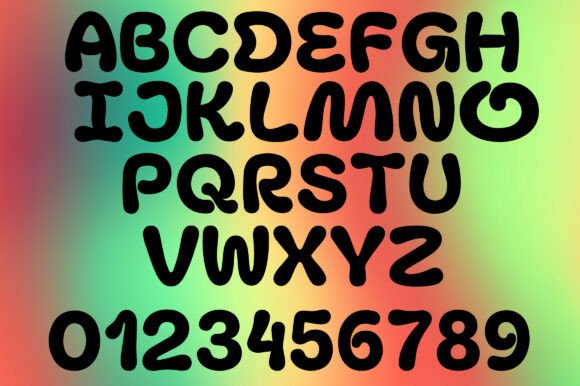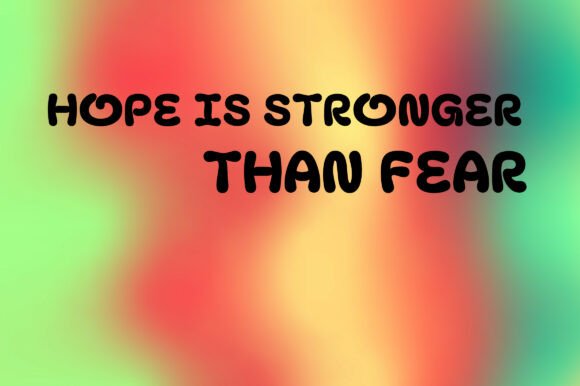
Introduction to Hope Shines Font
As I sat at my desk, surrounded by scraps of paper, paint swatches, and half-finished projects, I stumbled upon the perfect font to bring my creative vision to life – Hope Shines Font. This enchanting display font has an undeniable charm, transporting me to a bygone era of free-spirited creativity and psychedelic wonder. With its whimsical curves and rhythmic baseline, it’s as if Hope Shines Font is beckoning me to tap into the magic of the 1970s “New Age” aesthetic.
As a designer, I’ve often found myself searching for that elusive font that captures the essence of my creative project. Hope Shines Font is a valuable design resource that can elevate any project, from vibrant blog mastheads to tarot deck packaging. Its high-quality design and transparent background make it an ideal choice for designers seeking a unique and eye-catching visual element.
Key Features of Hope Shines Font
- Transparent Background: This font allows for seamless integration with any design, making it perfect for creative projects with a transparent background.
- High-Quality Design: This font is crafted with precision and attention to detail, resulting in a high-quality design that’s perfect for any creative project.
- Unique Characteristics: The Hope Shines Font features a unique blend of modern and vintage elements, making it perfect for designers looking for a distinctive look.
- Design Resource: This font is an excellent addition to any designer’s resource library, providing a versatile and high-quality design element for creative projects.
Honest Review: Hope Shines Font
What works well with the Hope Shines Font is its versatility. It can be used for a variety of creative projects, from social media graphics to marketing materials. The font’s modern and elegant design makes it a perfect fit for any high-quality design resource.
The font also features a transparent background, which is ideal for designers who want to add a touch of sophistication to their designs. Additionally, the font is highly customizable, making it easy to adjust the size, color, and style to suit your design needs.
- ✨ Versatile font that can be used for various design projects
One limitation of the Hope Shines Font is that it may not be suitable for more complex design projects, such as those requiring bold or italic text.
Overall, I’m thoroughly impressed with the Hope Shines Font. Its high-quality design, versatility, and free download make it an excellent addition to any designer’s toolkit.
- ⚠️ May not be suitable for complex design projects
Tips for Getting the Most Out of Hope Shines Font
Experiment with different font sizes and colors to create visually appealing designs. You can also pair the Hope Shines Font with a transparent background to add an extra layer of creativity to your project.
The Hope Shines Font is ideal for various design projects, including social media graphics, posters, presentations, reports, and documents. Its high-quality design and elegant feel make it a great addition to any creative project.